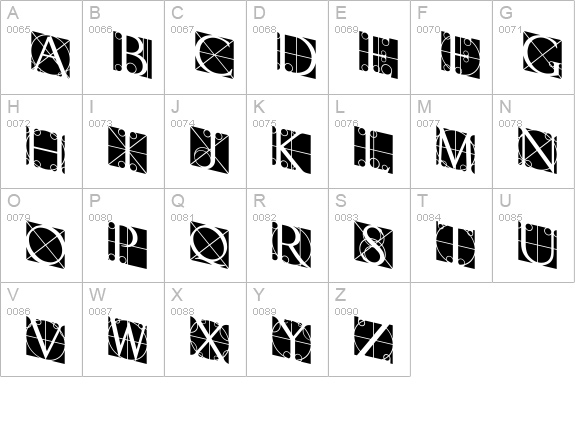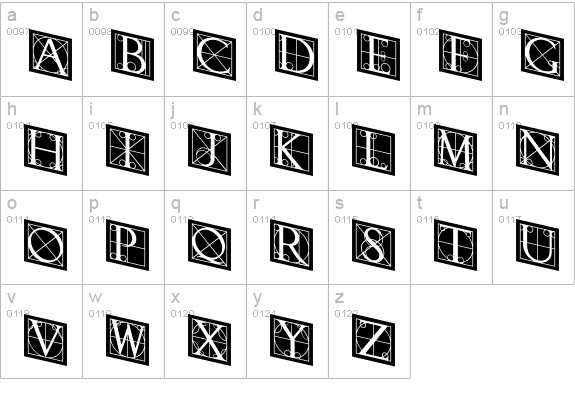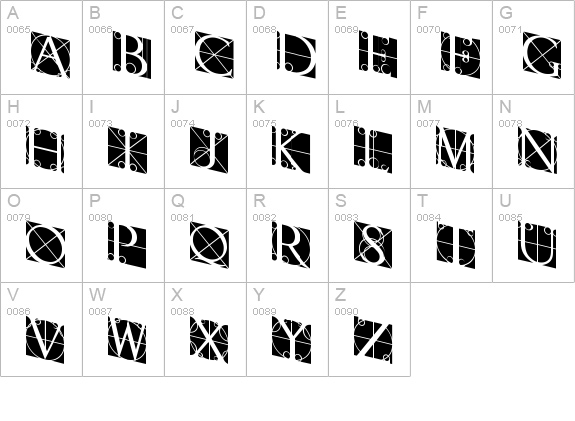
RodgauerThree Font Details
RodgauerThree font is a modern and stylish typeface that exudes sophistication and elegance. Its clean lines and sharp angles give it a sleek and contemporary look that is perfect for a variety of design projects. The font features a unique three-dimensional effect that adds depth and dimension to any text. RodgauerThree font is versatile and can be used for both headings and body text, making it a great choice for branding, advertising, and editorial design. Its bold and impactful presence demands attention and creates a strong visual impact. Best of all, RodgauerThree font is available for free download at FontsMarket.com, allowing designers to access this high-quality typeface without any cost. Don't miss out on the opportunity to enhance your designs with the modern and stylish RodgauerThree font.